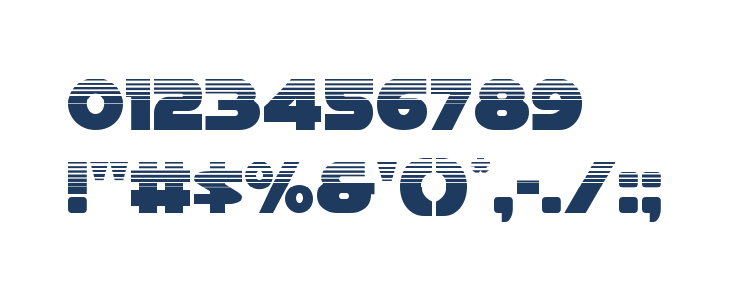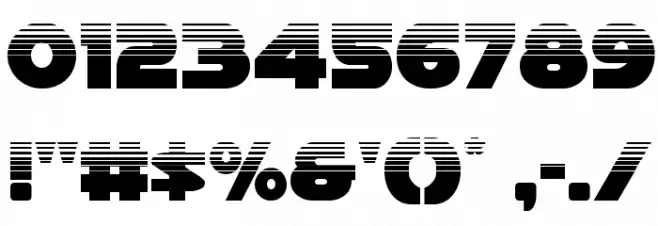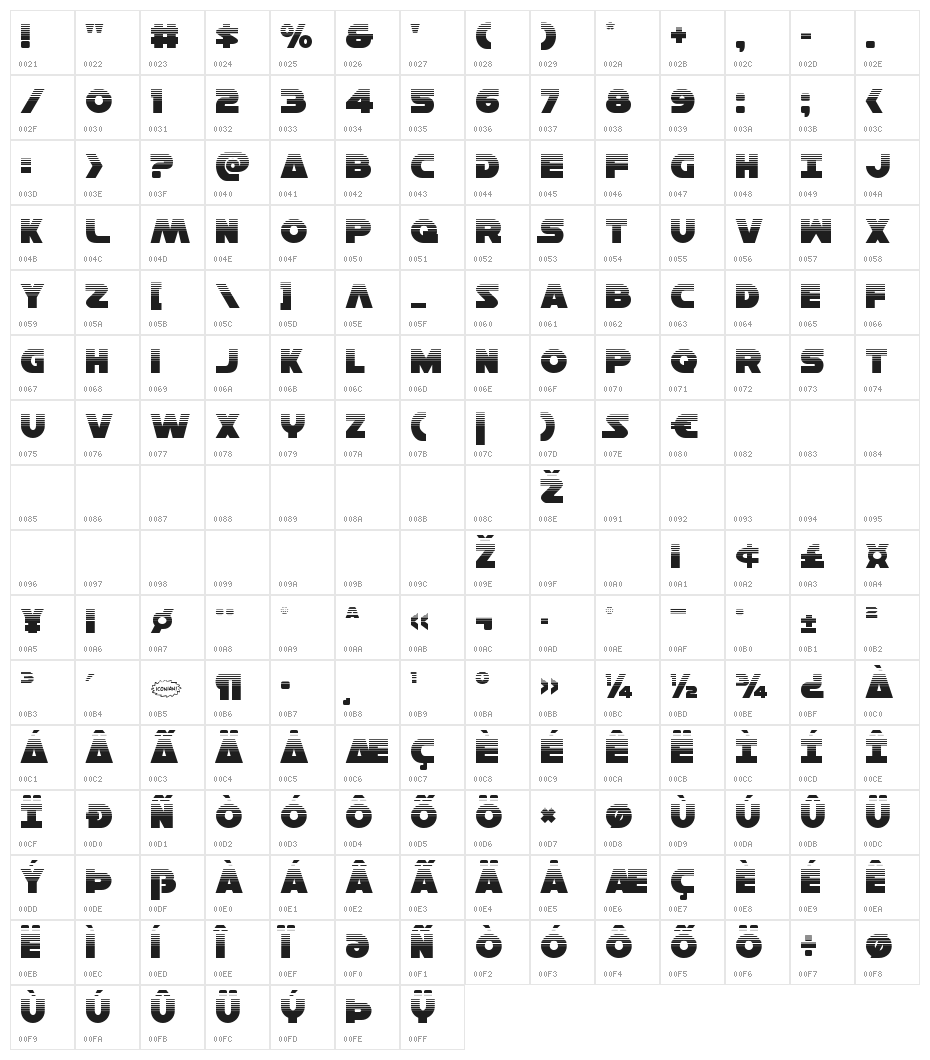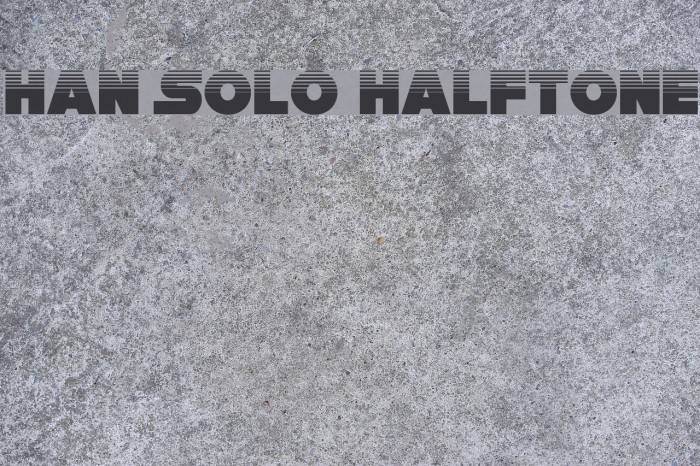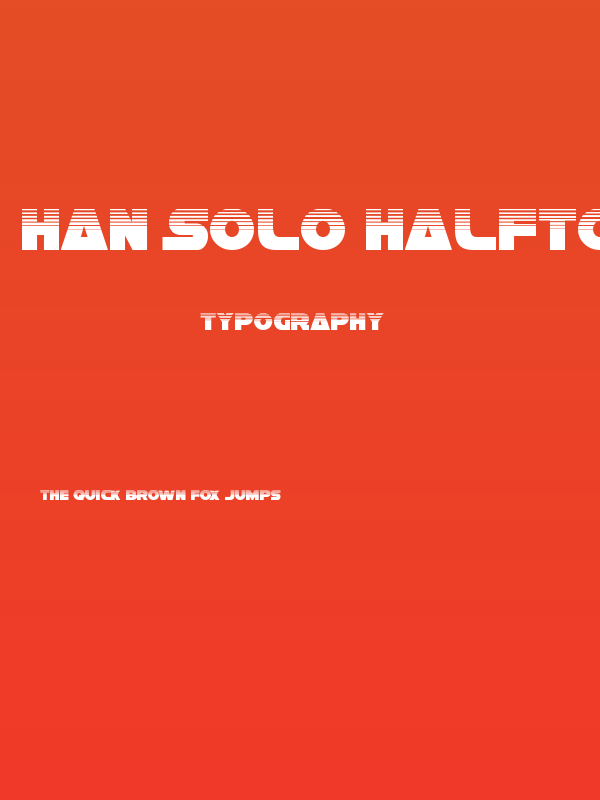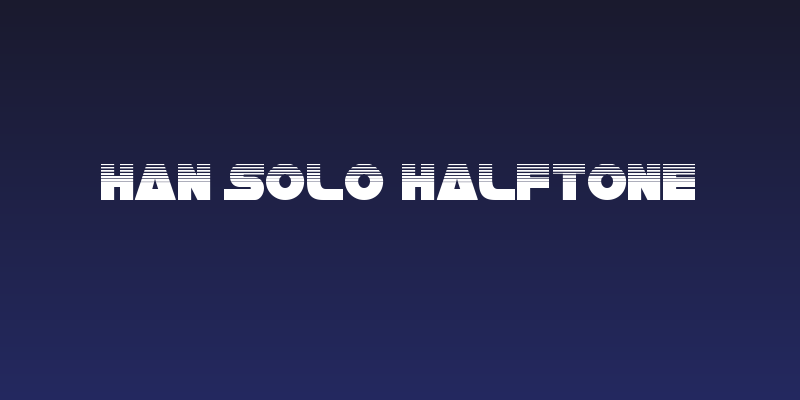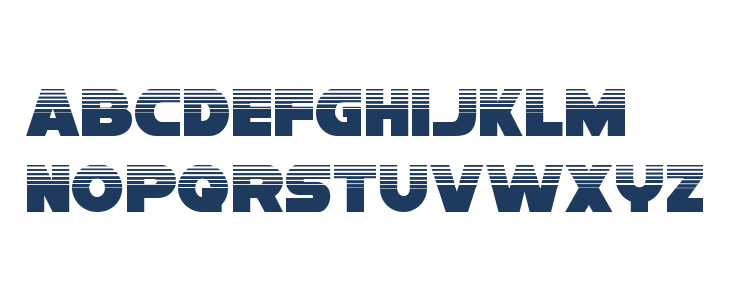
Han Solo Halftone Font
Han Solo Halftone Description
This font features a bold, geometric design with a unique halftone effect that creates a sense of movement and depth. The characters are constructed with solid black shapes interrupted by horizontal white lines, giving them a dynamic, futuristic appearance. The uppercase letters are particularly striking, with sharp angles and a strong presence. The numerals and special characters maintain this bold style, ensuring consistency across all glyphs. This font is ideal for projects that require a modern, eye-catching look.
| Proposed Projects | Ideal for sci-fi themed posters, futuristic branding, video game titles, and dynamic logos. |